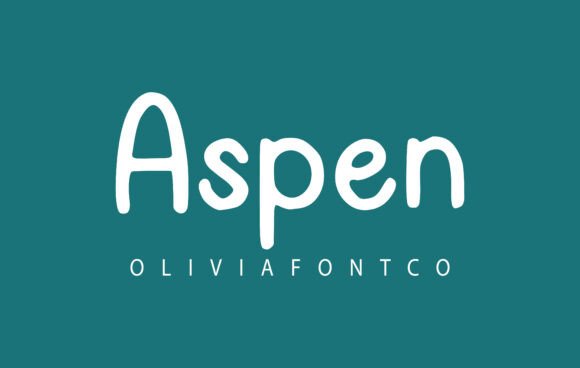
Aspen Font: The Ultimate Handwritten Font for Creative Projects
Aspen Font is a beautiful, authentic handwritten font that adds a romantic touch to any creative project. Designed to be a true favorite among designers and artists, this font has the potential to elevate your ideas to new heights. With its exceptional legibility and versatility, Aspen Font is perfect for a wide range of applications, from magazine headlines and social media graphics to branding, wedding invitations, and more.
The Characteristics of Aspen Font
Aspen Font is a carefully crafted handwritten font that boasts a unique blend of elegance and playfulness. Its authentic, hand-written feel makes it perfect for designs that require a personal touch. The font features:
- Romantic and Whimsical Feel: Aspen Font has a distinctly romantic and whimsical feel, making it ideal for designs that require a touch of personality and charm.
- Exceptional Legibility: Despite its handwritten nature, Aspen Font is remarkably legible, making it suitable for use as both title and body text.
- Versatility: This font is incredibly versatile and can be used for a wide range of creative projects, from print materials to digital applications.
Uses of Aspen Font
Aspen Font’s versatility makes it an excellent choice for various design projects. Here are some of the many ways you can use this beautiful font:
Magazine Headlines and Articles
Aspen Font is perfect for magazine headlines, article titles, and body text. Its elegant and legible design ensures that your content stands out and engages readers.
Social Media Graphics
Create stunning social media graphics with Aspen Font. Its unique and eye-catching design will help your posts stand out in crowded feeds and attract more attention.
Branding and Logo Design
Aspen Font can be used to create beautiful brand identities, including logos, business cards, and letterheads. Its distinctive design will help your brand stand out and establish a strong visual presence.
Wedding Invitations and Stationery
Aspen Font is an excellent choice for wedding invitations, save-the-date cards, and other stationery. Its romantic and elegant design will add a touch of sophistication and whimsy to your wedding stationery.
Cards and Greeting Cards
Create beautiful cards and greeting cards with Aspen Font. Its legible and elegant design makes it perfect for various occasions, including birthdays, holidays, and get-well wishes.
Why Choose Aspen Font?
With so many fonts available, why choose Aspen Font for your creative projects? Here are some compelling reasons:
- Unique and Authentic Design: Aspen Font boasts a unique and authentic handwritten design that sets it apart from other fonts.
- Exceptional Legibility: This font is remarkably legible, making it suitable for use as both title and body text.
- Versatility: Aspen Font can be used for a wide range of creative projects, from print materials to digital applications.
- Elegant and Whimsical Feel: This font has a distinctly elegant and whimsical feel, making it perfect for designs that require a touch of personality and charm.
Tips for Using Aspen Font Effectively
To get the most out of Aspen Font, here are some tips for using it effectively:
Pair with Complementary Fonts
Pair Aspen Font with complementary fonts to create a harmonious and visually appealing design.
Experiment with Colors and Textures
Experiment with different colors and textures to add depth and interest to your design.
Use for Headlines and Titles
Use Aspen Font for headlines and titles to add a touch of elegance and sophistication to your design.
Keep it Simple
Don’t over-accessorize your design. Keep it simple and let Aspen Font’s elegant design shine through.
Aspen Font is a beautiful, authentic handwritten font that adds a romantic touch to any creative project. With its exceptional legibility, versatility, and elegant design, this font is perfect for a wide range of applications, from magazine headlines and social media graphics to branding, wedding invitations, and more. Whether you’re a designer, artist, or DIY enthusiast, Aspen Font is an excellent choice for your next creative project.